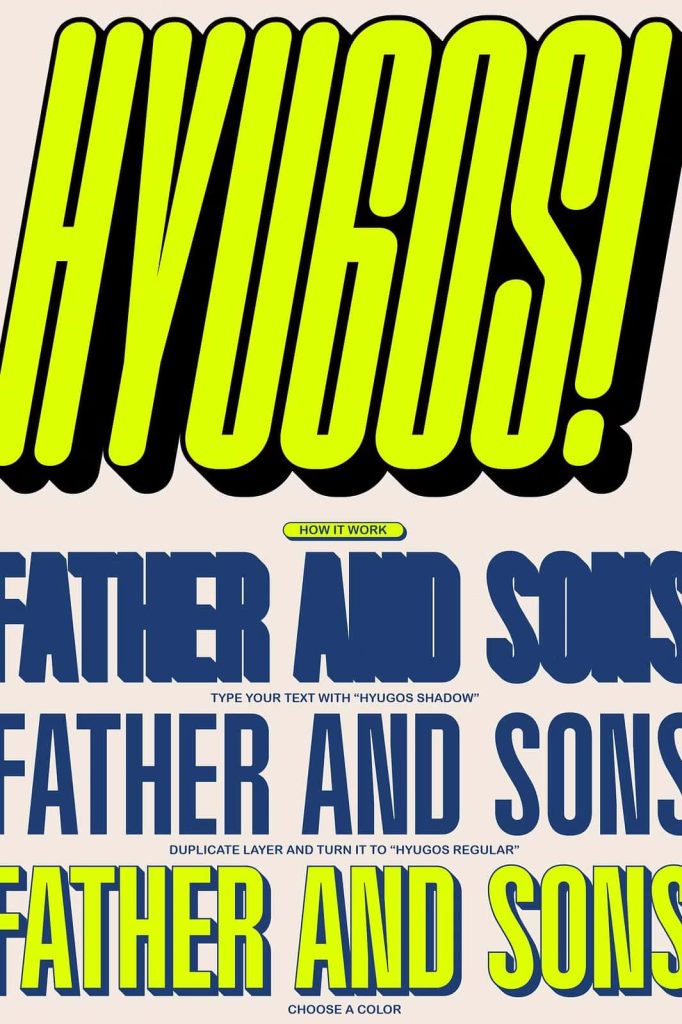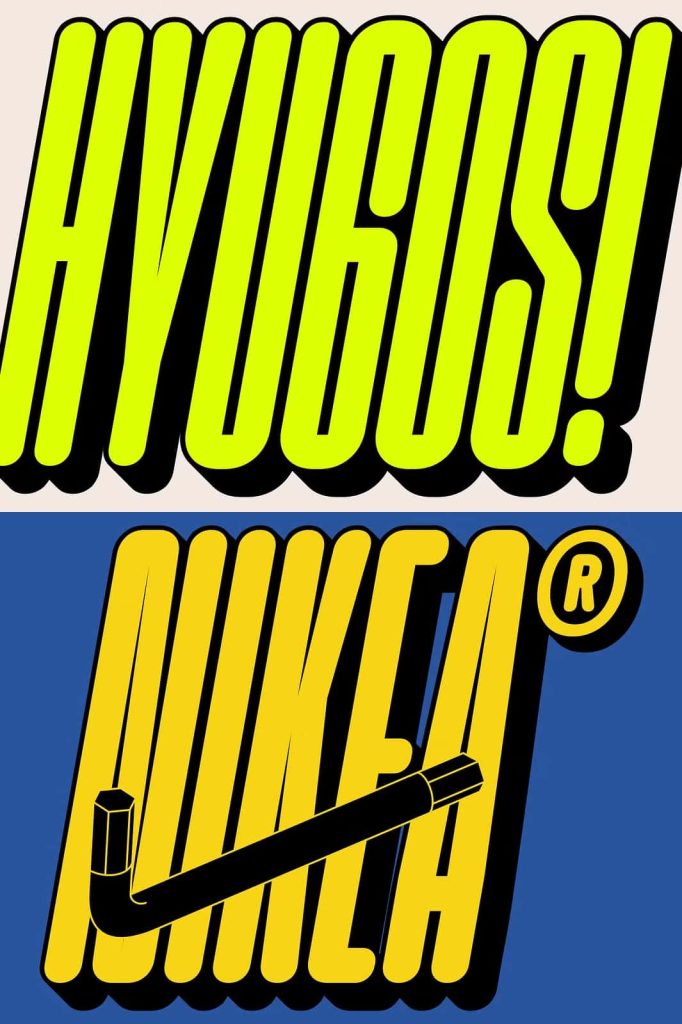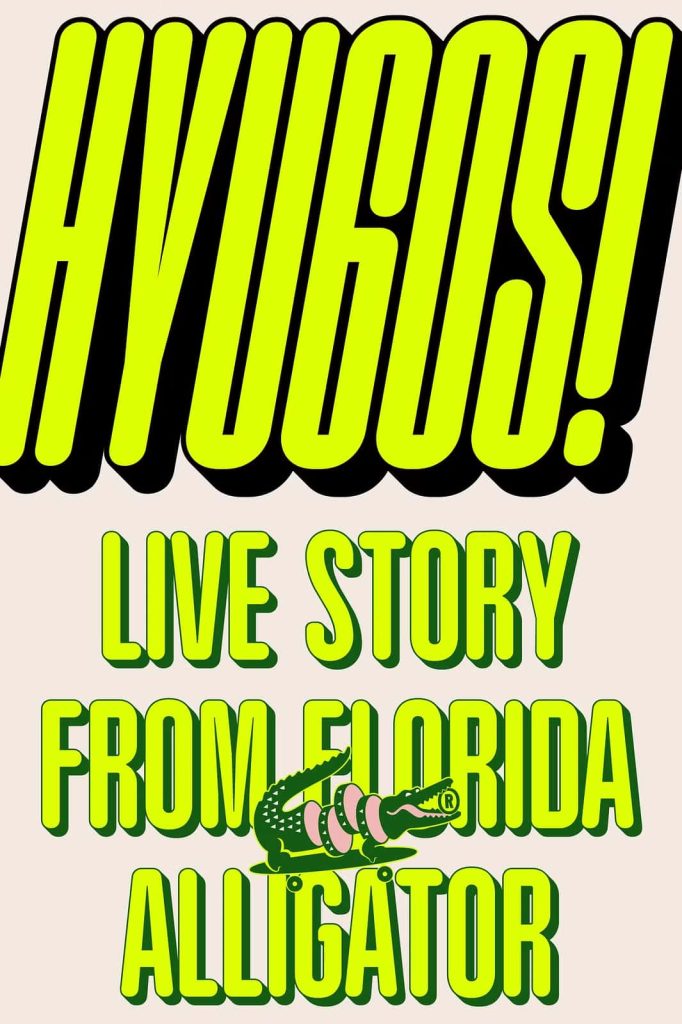
Hyugos | Condensed Shadow Font!!leastedMarch 29, 2025Fonts Hyugos is a condensed type of font that has a different character from the previous condensed font Download